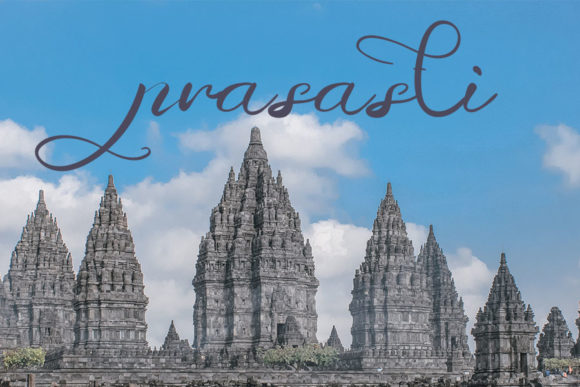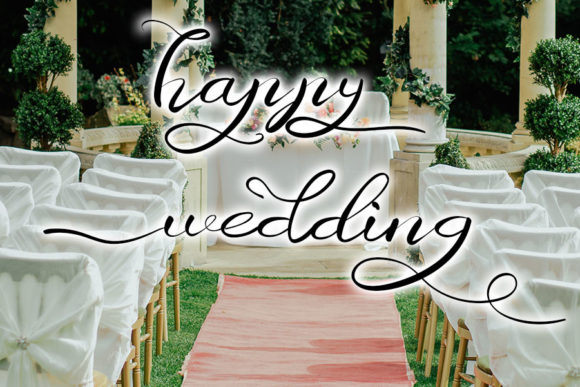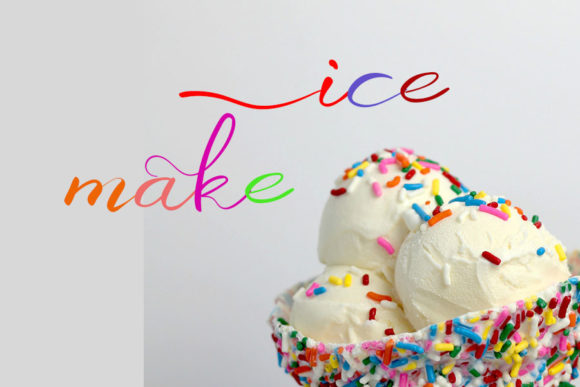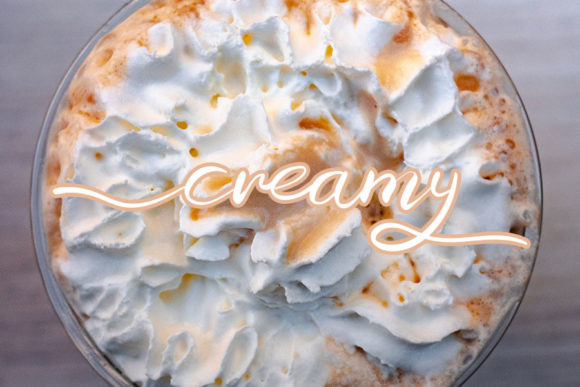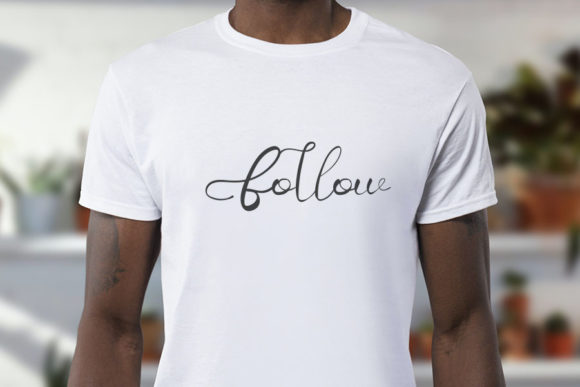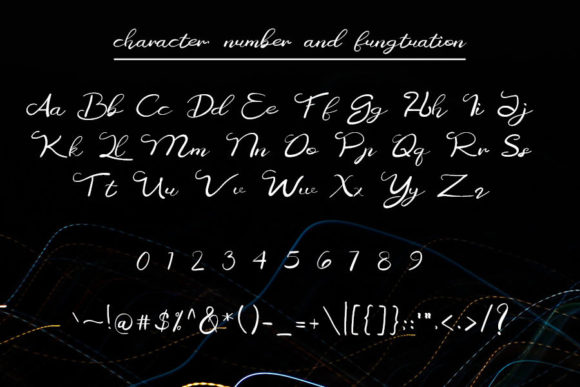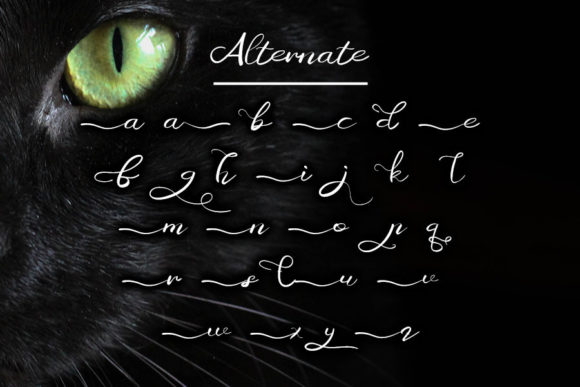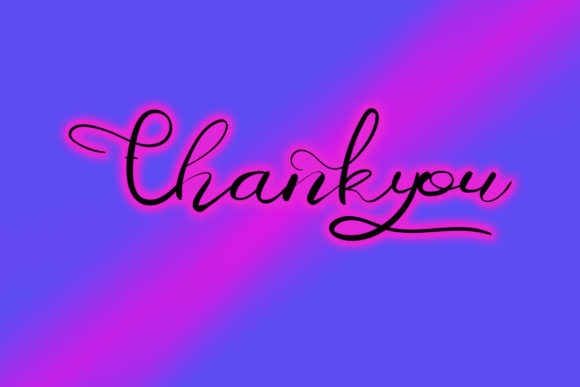
Stayhome is an incredibly unique, whimsical and delicate script font. It will add a luxury spark to any design project that you wish to create! This font is PUA encoded which means you can access all of the amazing glyphs and ligatures with ease!